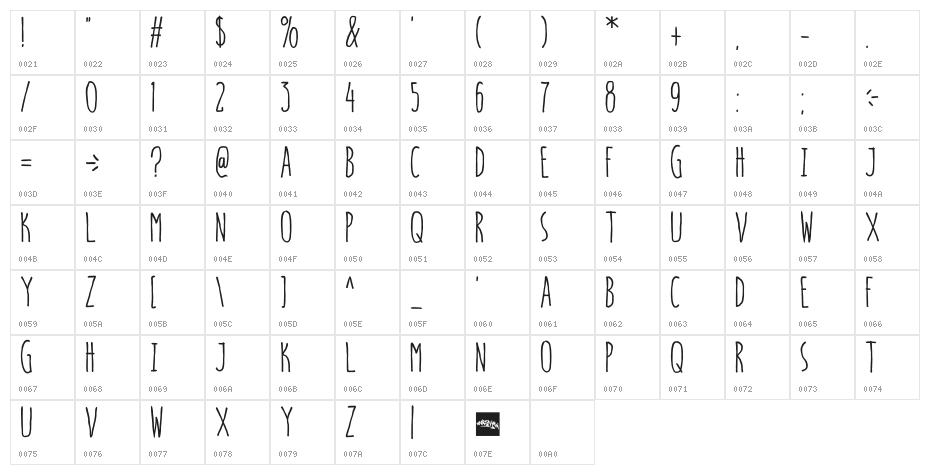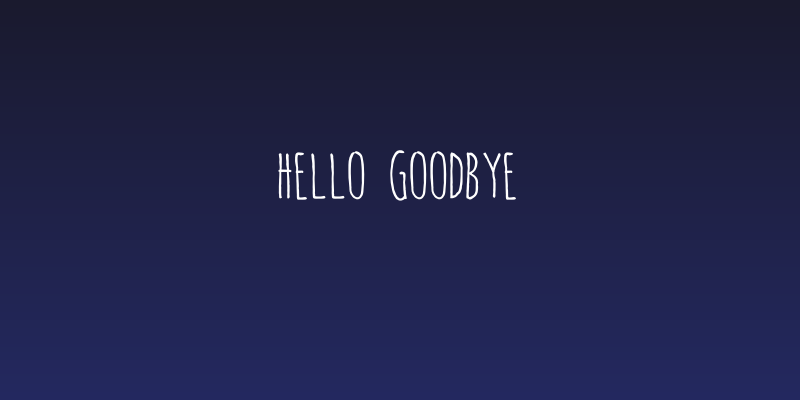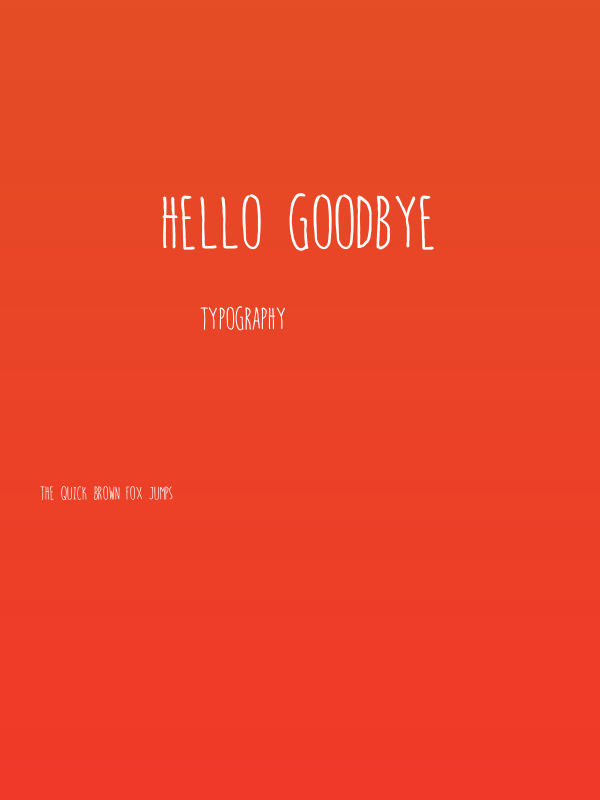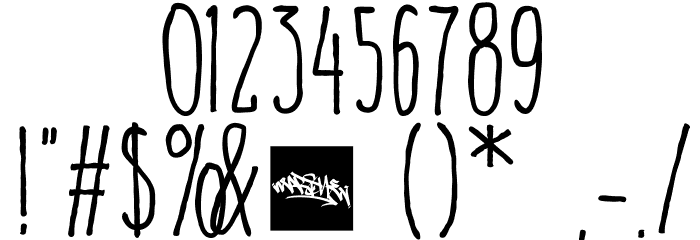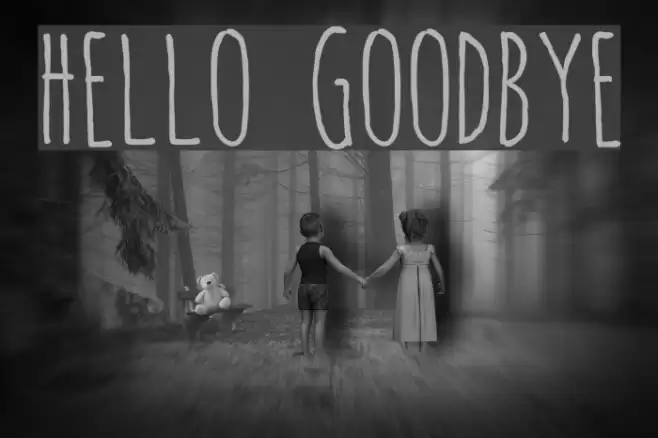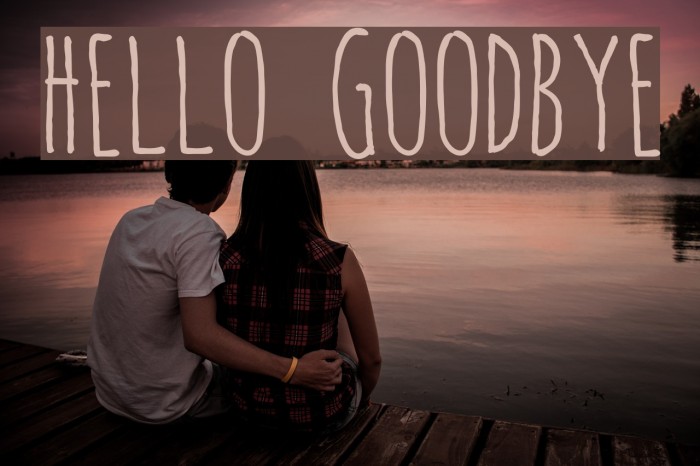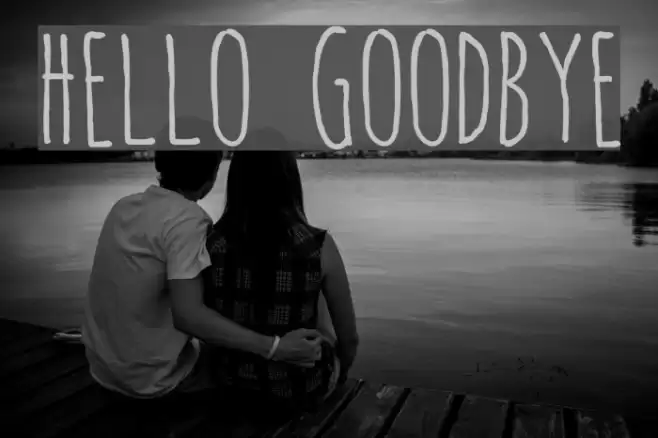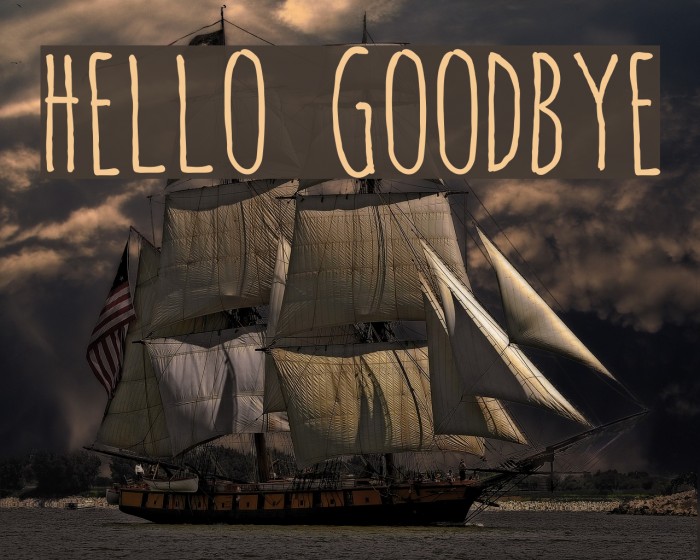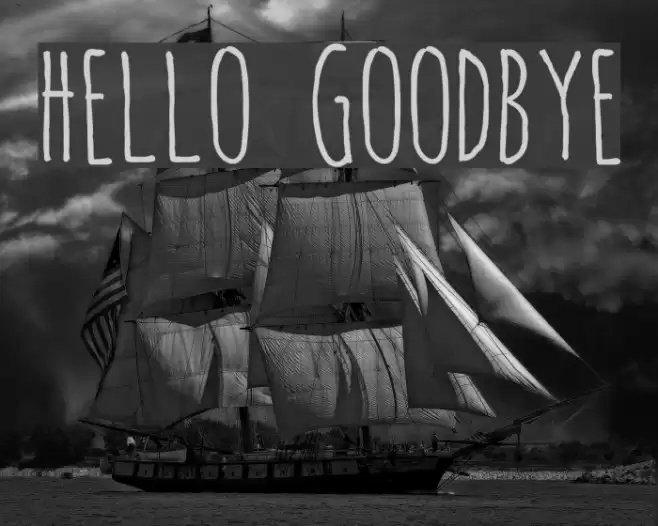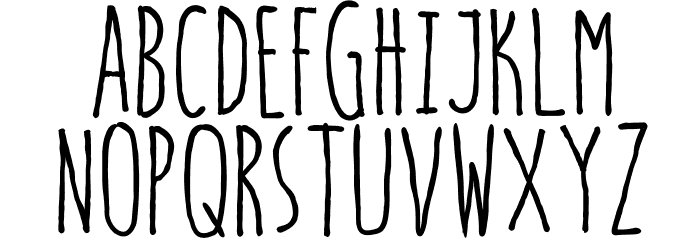
hello goodbye Font
hello goodbye Description
This font features a playful and quirky handwritten style, characterized by its tall, narrow letterforms and slightly irregular strokes. The uppercase and lowercase letters maintain a consistent height, creating a uniform appearance. The numerals and special characters follow the same whimsical design, adding to the font's overall charm. The strokes are uneven, giving it a casual and informal feel, perfect for projects that require a personal touch. The spacing between characters is moderate, ensuring readability while maintaining the font's unique style.
| Width | Condensed |
| Overall Style | Casual |
| Use Case | Headlines, Logos, Informal Text |
| Proposed Projects | Ideal for greeting cards, children's books, playful branding, and casual invitations. |